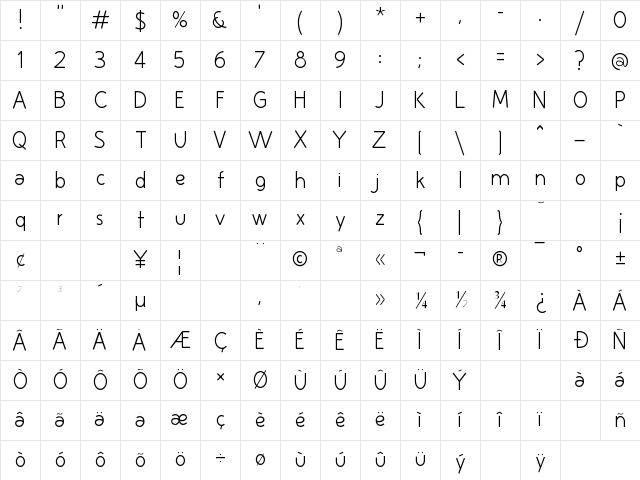
Huelic Light
Huelic Family
Huelic Light
Design Context for Huelic
Huelic is a composed and adaptable typeface that performs quietly and consistently across a wide range of design contexts. Its slender proportions lend an understated elegance to any composition.